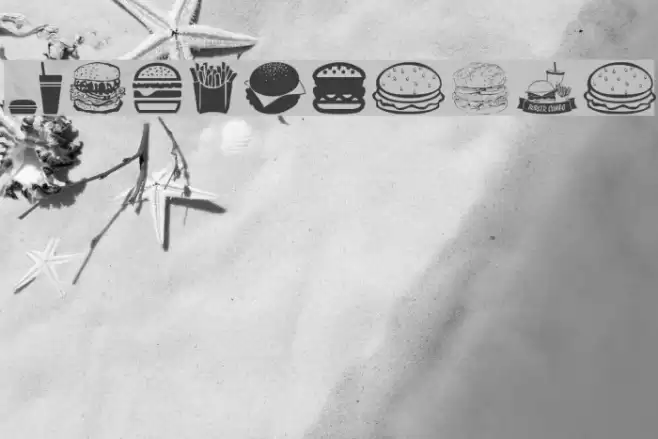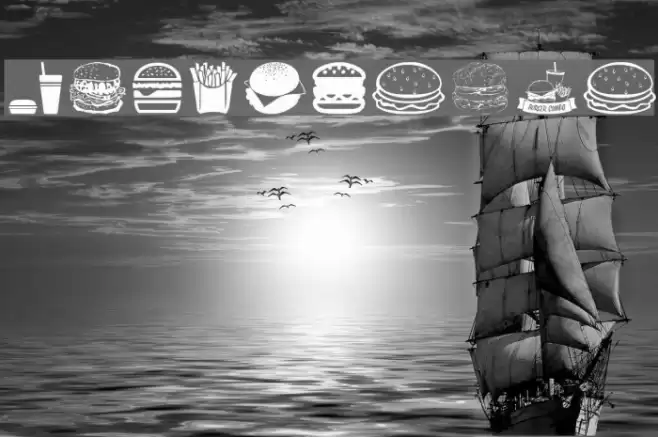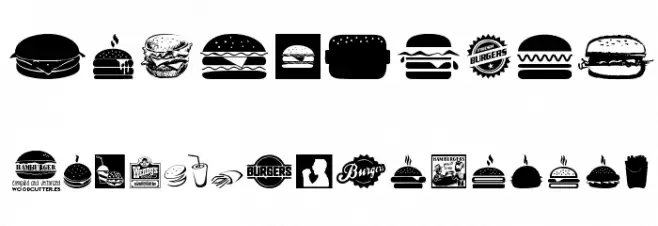
Hamburger Font
Hamburger Description
A playful, decorative collection of hamburger and fast food-themed glyphs, featuring a mix of detailed illustrations and bold, simplified icons. The set includes burgers, drinks, fries, and related food elements, with varying levels of detail and line thickness.
Decorative food icon set with burgers and fast food motifs from Uncategorized fonts.
- Proposed Projects: Restaurant branding, menu design, food truck graphics, event flyers, playful packaging.
- Overall Style: Playful, Decorative, Modern
- Use Case: Logos, Icons, Themed headlines, Menus